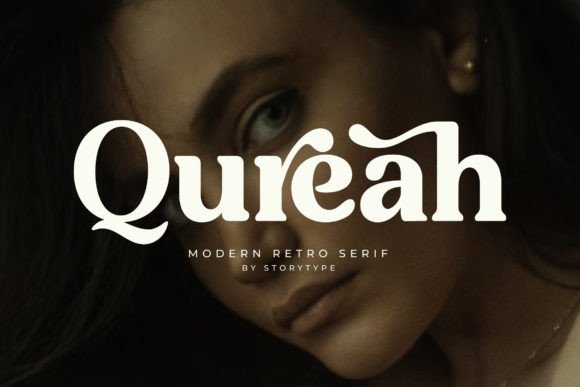
Dive into the realm of sophistication and style with Qureah, an awe-inspiring serif font meticulously crafted to elevate your designs to new heights. Let your creations radiate confidence and grace with Qureah's timeless and elegant form, perfect for a symphony of chic and captivating designs. Unveil the allure of distinct glyphs and ligatures, effortlessly accessible through PUA encoding, and transform your creative vision into a masterpiece.
Qureah is a versatile chameleon, effortlessly adapting to a myriad of design endeavors. Its inherent charm shines through in logos, branding, invitations, posters, and any project yearning for a touch of elegance. Embark on a journey of creative exploration, knowing that Qureah will seamlessly complement and enhance your artistic expression.
Imagine the allure of your designs captivating audiences, leaving an indelible mark on their minds. The meticulous detailing of Qureah ensures that each letterform exudes a symphony of refined beauty, making your creations impossible to ignore. Unleash the power of Qureah to elevate your work beyond the ordinary and into the realm of unforgettable.